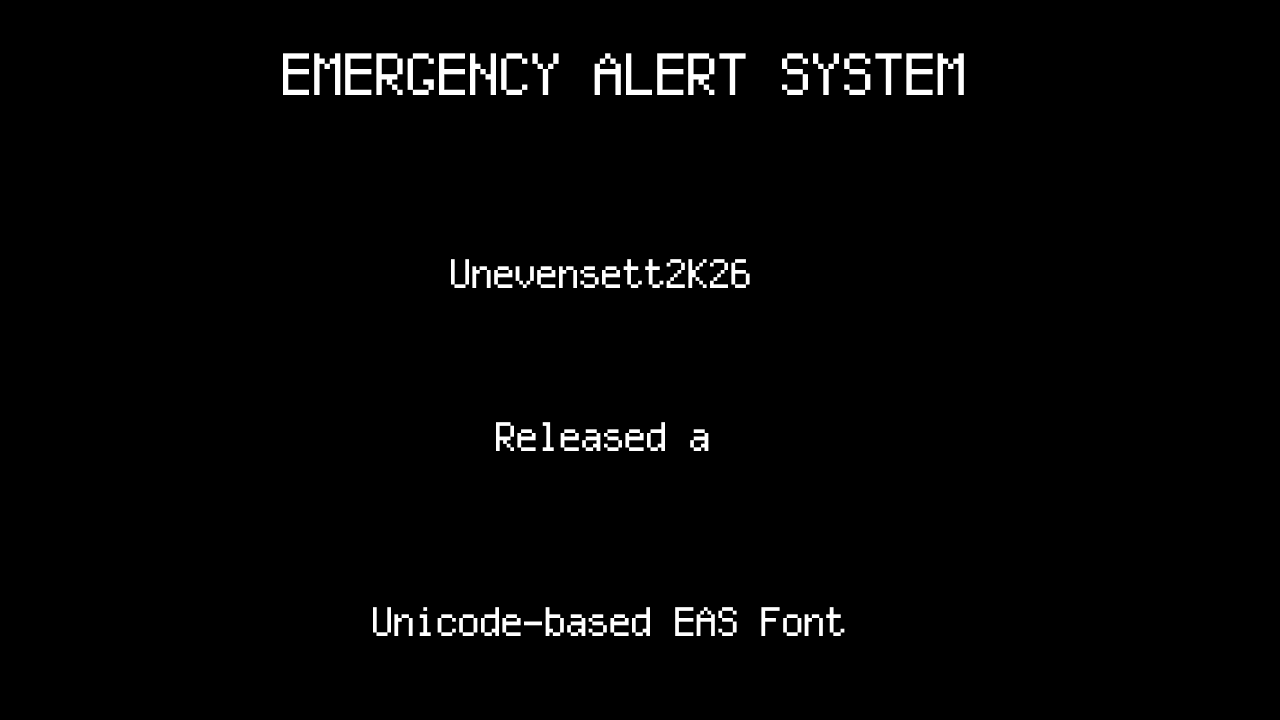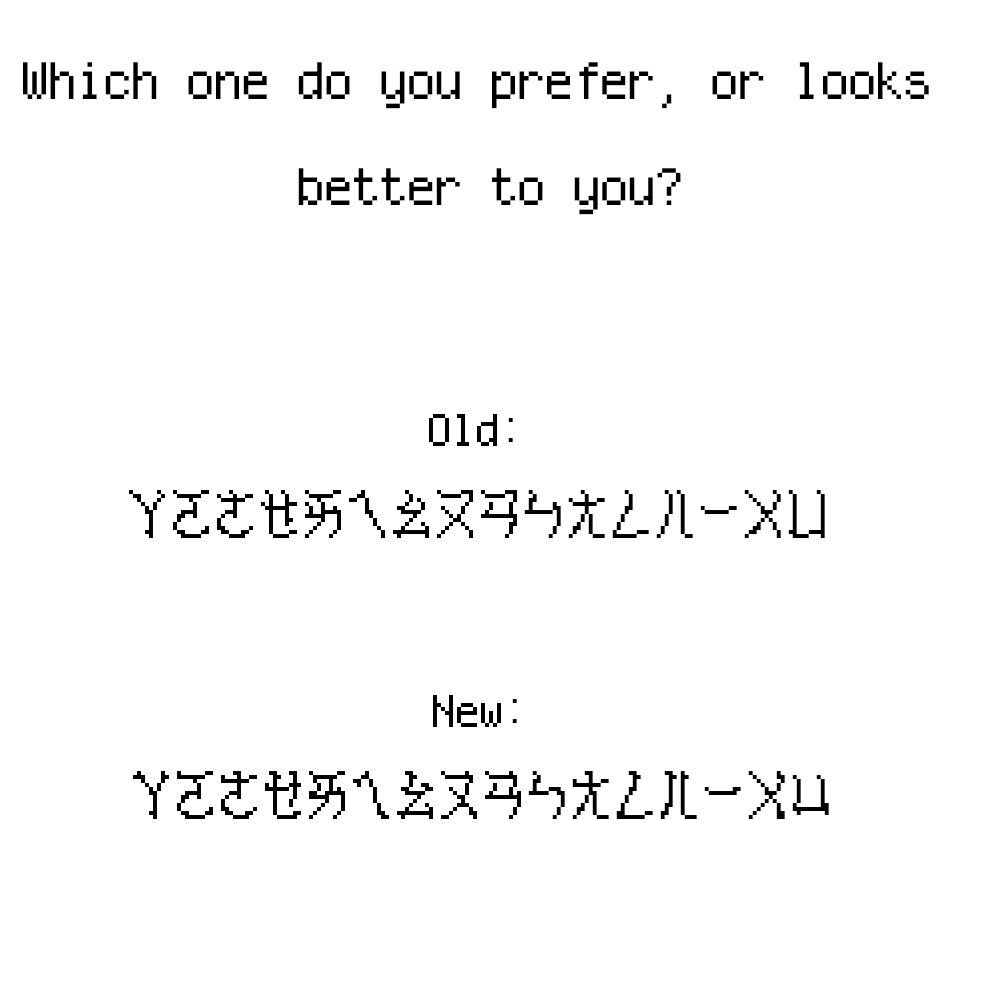
current version: 1.07-beta
block(s) that will be included in the next update (v1.08): IPA Extensions, Spacing Modifier Letters, and Combining Diacritical Marks
--- WIP zone ---
Greek and Coptic
loosely inspired by glazier pixel.
some glyphs will be in proportional to make it easier to read.
i completed latin extended-B in just less than 24 hours! (with breaks)
CJK characters will be in sung/ming style.
i am adding bopomofo first before cyrillic because i want to experiment with CJK characters.
bopomofo is done. however, i need to adjust most characters according to babelstone han’s style.
@NewCurvenBig okay. but sadly i won’t change it back to old, because in my opinion, the new version fits the style of sung/ming typefaces
i am almost surpassing the amount of back home’s glyphs!!! at the time of writing this, there are 246 glyphs left until i surpass back home!
v1.06 update: cyrillic block is finally complete!!! (except for the hundred thousands and millions sign. i will try to add those two characters if possible.)
i wil add IPA extensions and combining diacritical marks, after i complete greek and coptic.